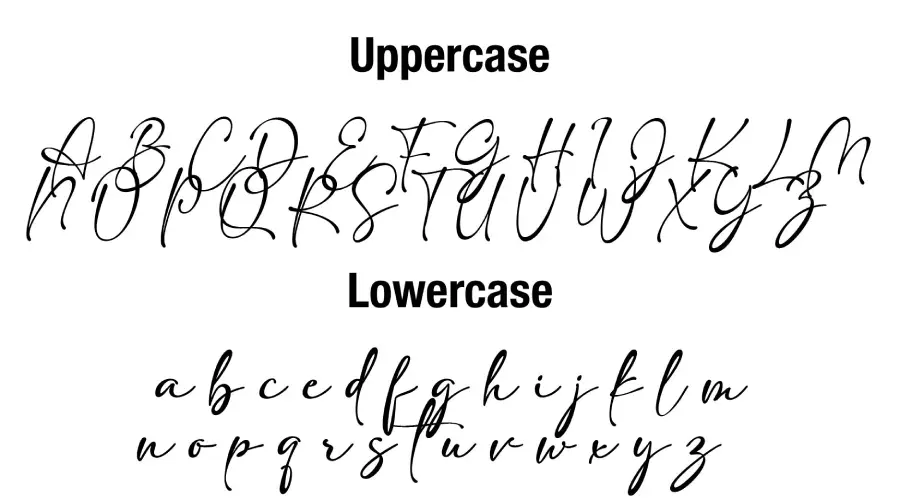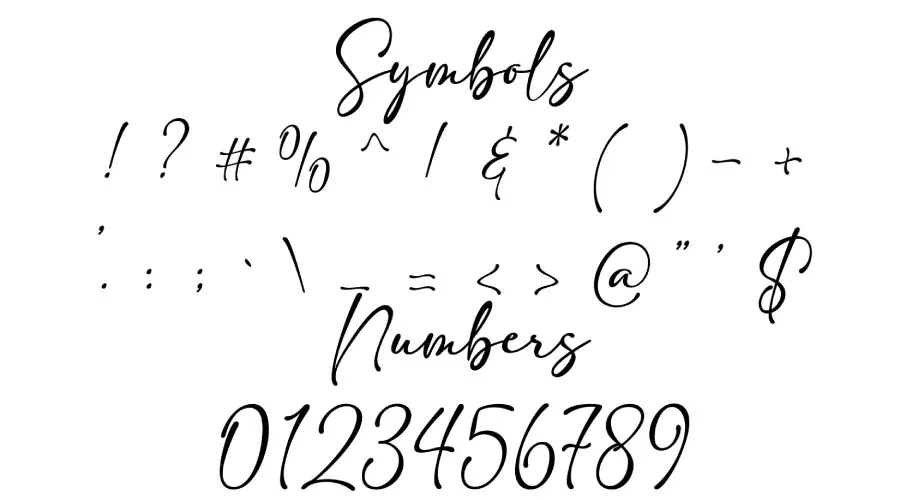
Adelia font is a script font designed by Carroline Typography, a type foundry based in Indonesia. It has gained immense popularity in the design community. Originating as a TrueType font, Adelia has been downloaded millions of times across various platforms, showcasing its universal appeal. It has 351 glyphs and 350 characters.
How To Use The Font Effectively in Your Design
Adelia font’s charm lies in its bouncy and romantic nature. Its handwritten touch is suitable for:
- Wedding Invitations: Capture love and commitment.
- Logos: Create a memorable brand identity.
- Greeting Cards: Convey heartfelt messages.
- Digital Book Covers: Make a lasting first impression.
To truly harness Adelia’s power, ensure that it complements the overall design theme.
Adelia is more than just a font; it’s a testament to calligraphy and modern design beauty. Its versatility ensures it finds a place in various design projects, from branding to personal invitations. As you embark on your design journey, let Adelia guide you towards creating masterpieces.